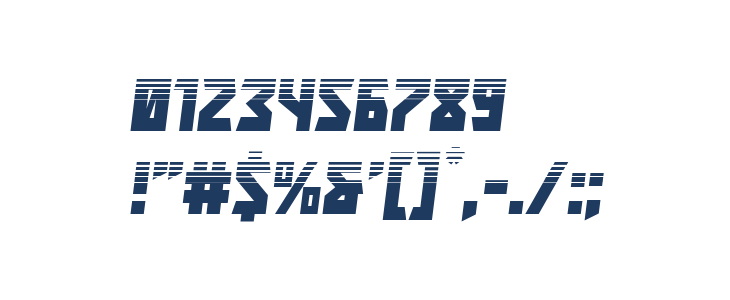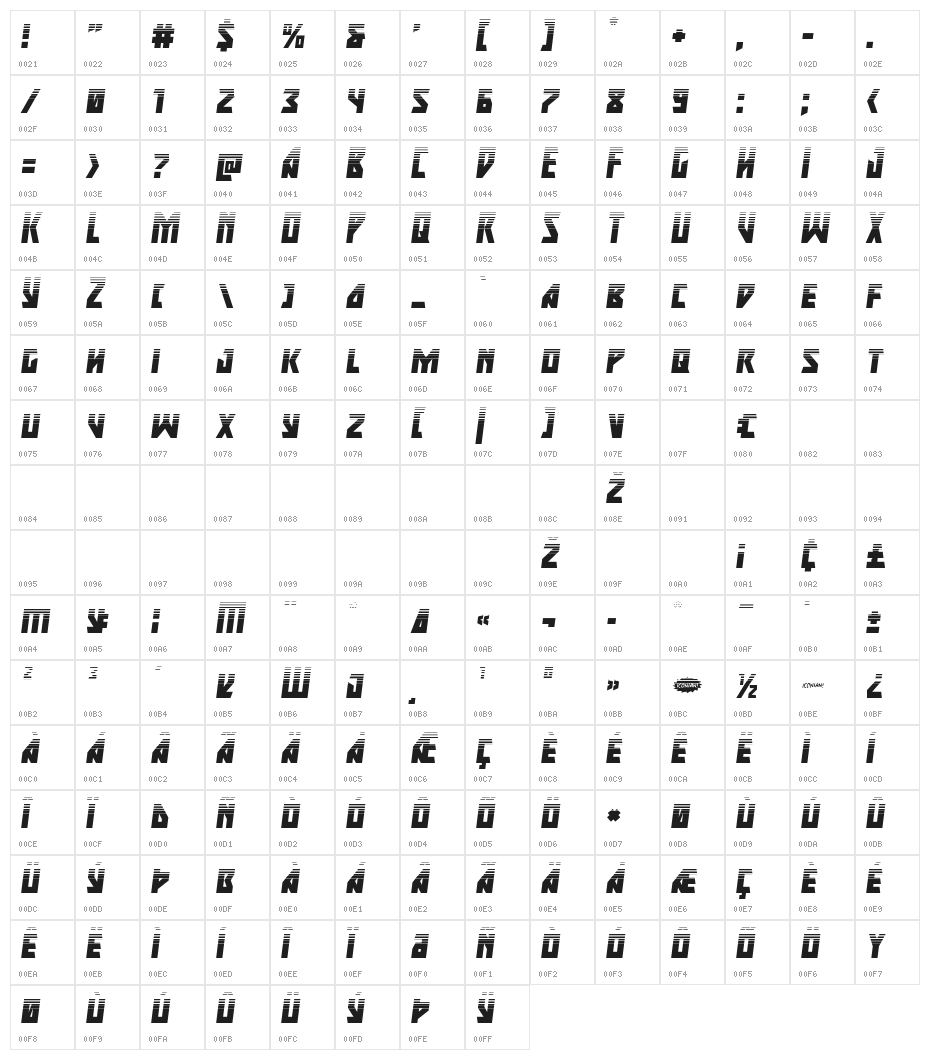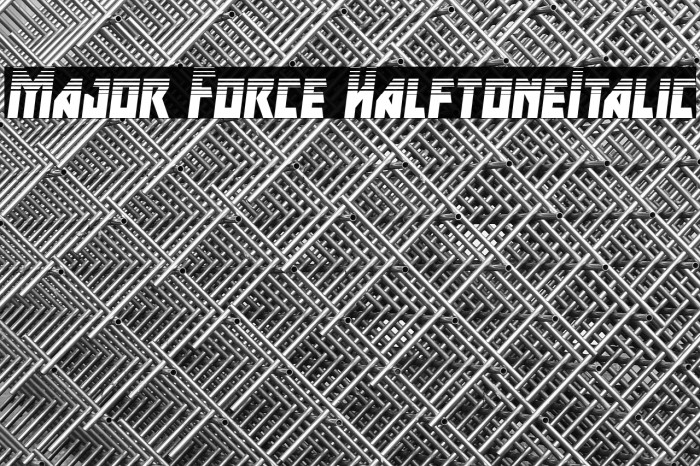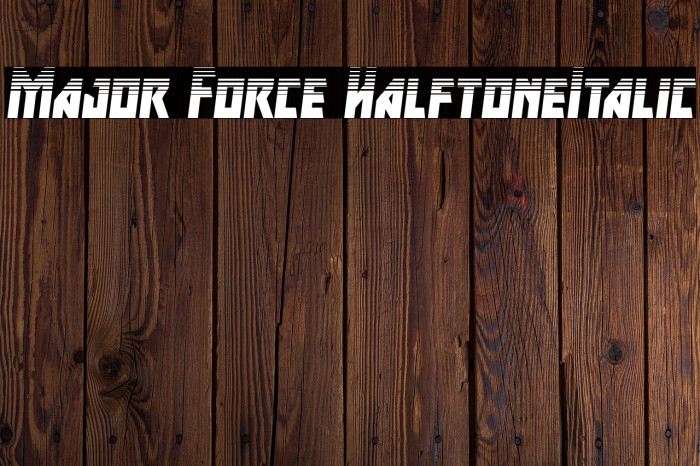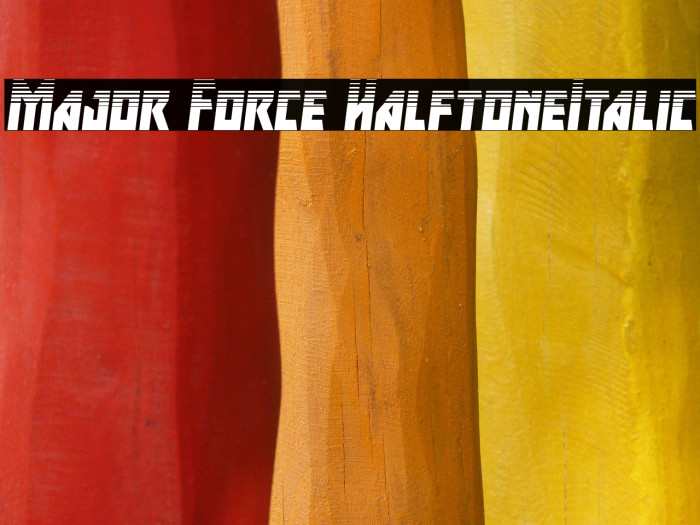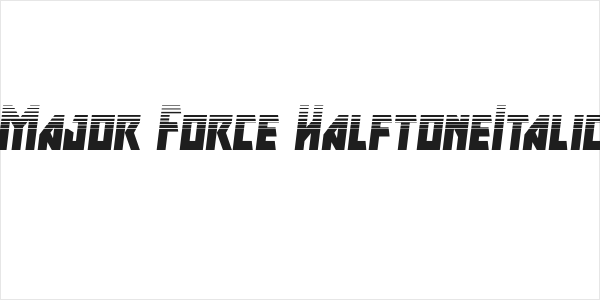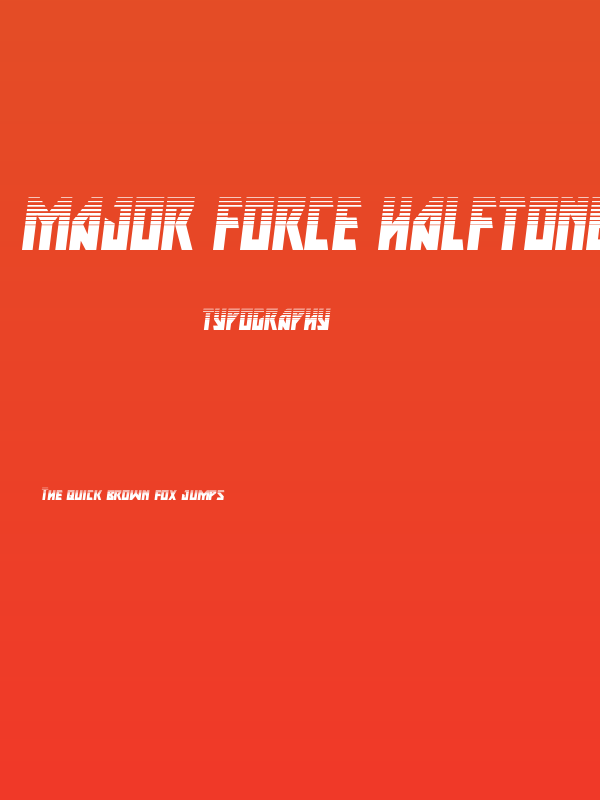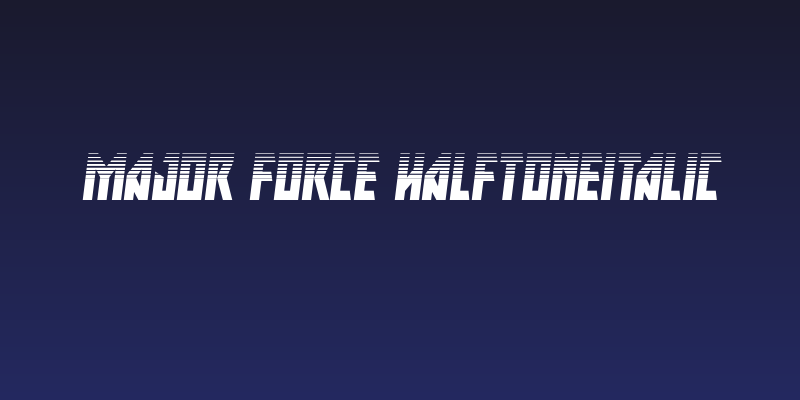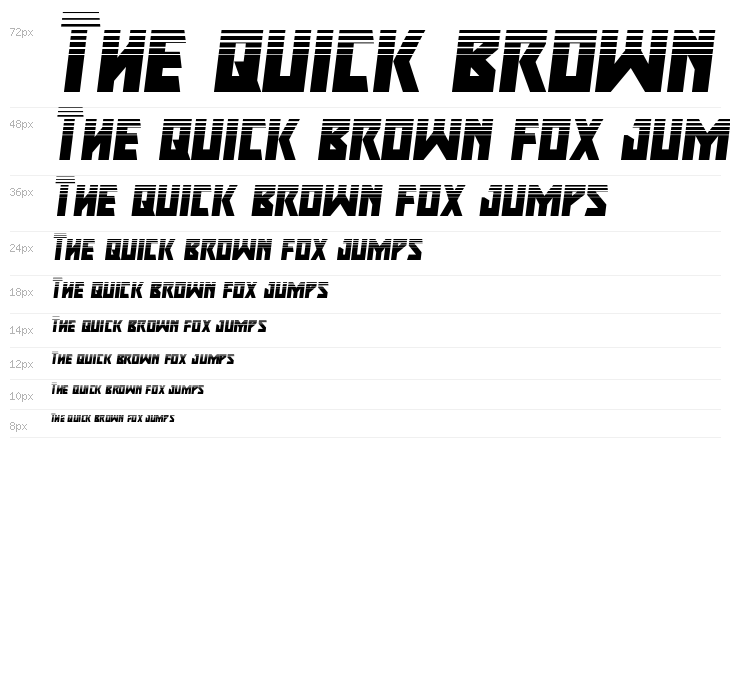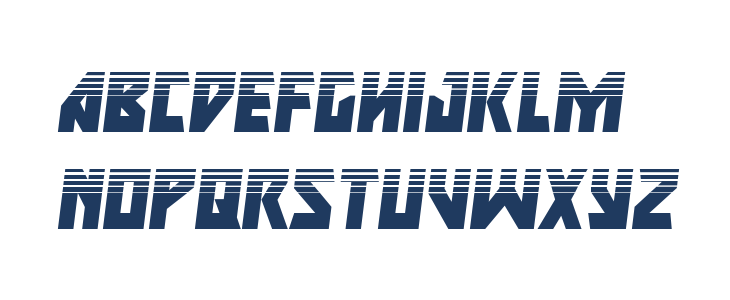
Major Force HalftoneItalic Font
Major Force HalftoneItalic Description
This font features a bold, futuristic design with a halftone effect that gives it a dynamic and energetic appearance. The uppercase letters are characterized by sharp angles and a distinct slant, creating a sense of motion. The halftone pattern is prominent, adding a textured look that enhances its visual impact. The numbers and special characters follow the same stylistic approach, ensuring consistency across all glyphs. This font is ideal for projects that require a modern and edgy aesthetic, making it suitable for technology-related themes, sports branding, or any creative endeavor that seeks to stand out.
| Proposed Projects | Ideal for technology branding, sports logos, futuristic designs, and creative advertising. |